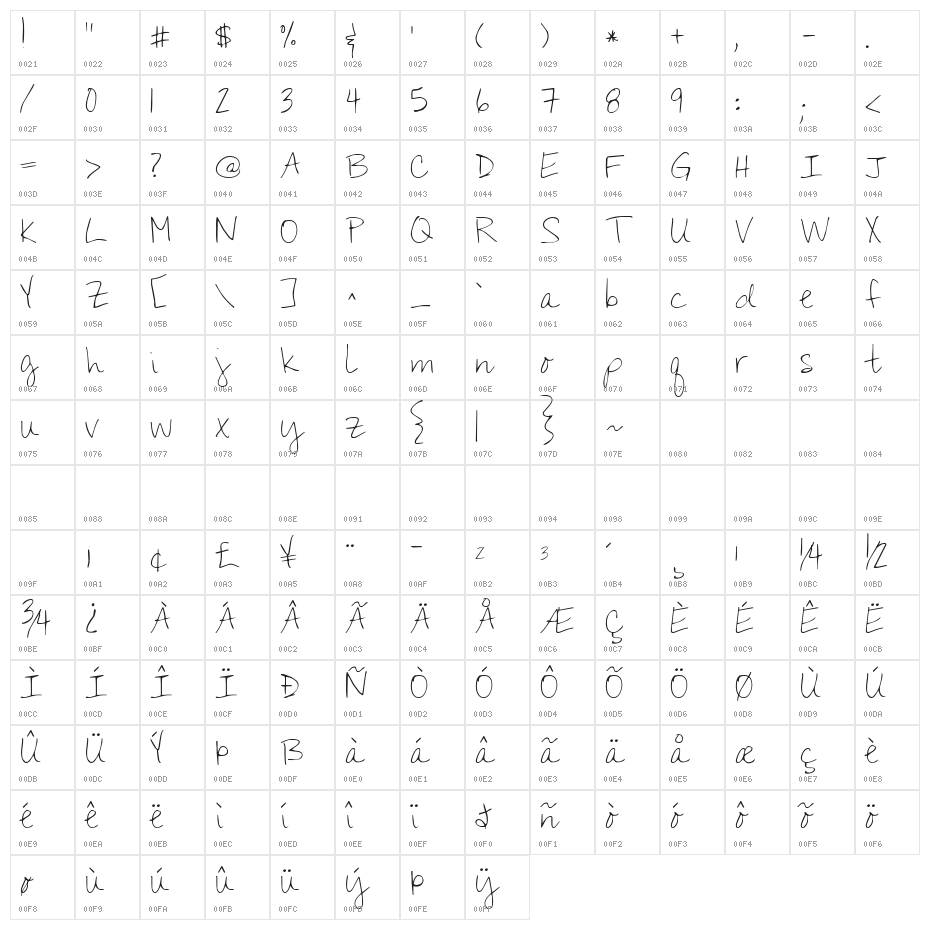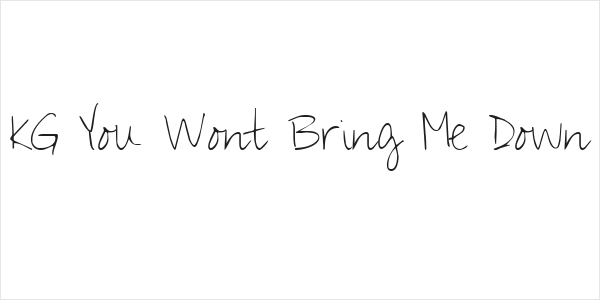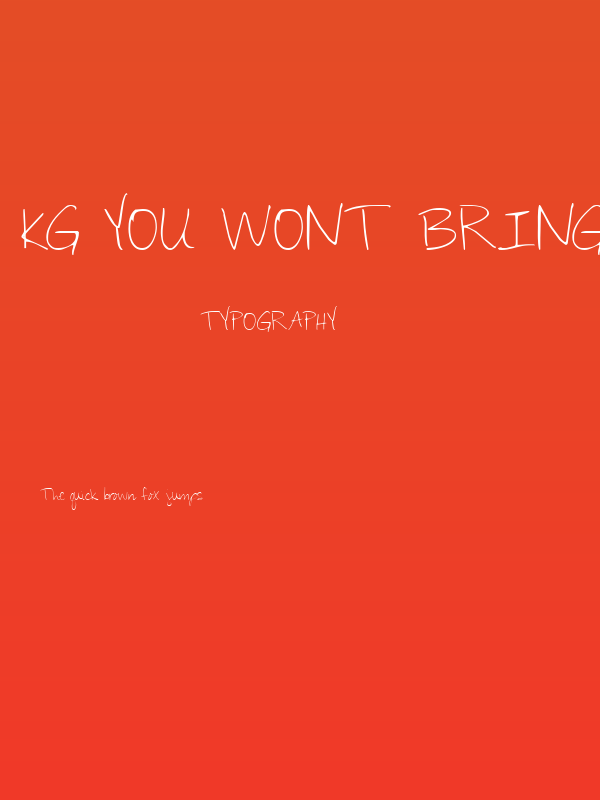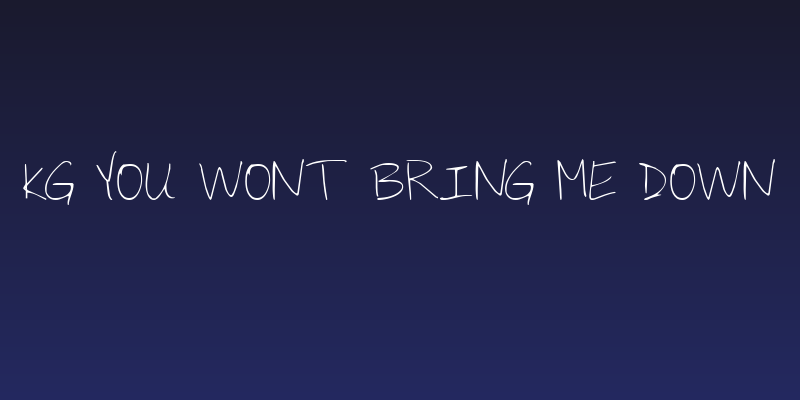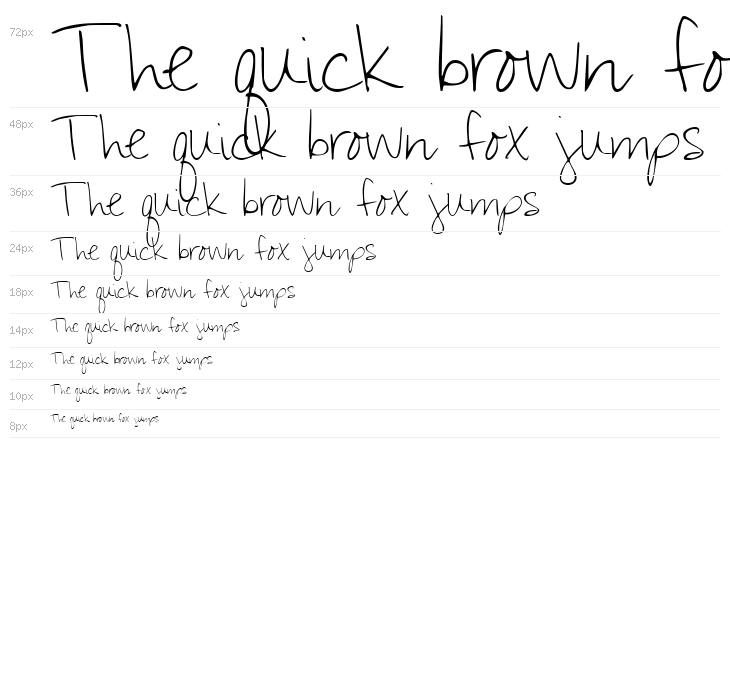
KG You Wont Bring Me Down Font
KG You Wont Bring Me Down Description
This font features a playful and casual handwritten style, characterized by its loose and informal strokes. The letters are slightly slanted, giving it a dynamic and lively appearance. The uppercase and lowercase letters maintain a consistent flow, with rounded edges and varying line thickness that add to its handwritten charm. The numbers and special characters follow the same style, ensuring uniformity across all glyphs. This font exudes a friendly and approachable vibe, making it suitable for projects that require a personal touch.
| Use Case | Logos, Headlines, Informal text |
| Proposed Projects | Ideal for greeting cards, personal notes, children's books, and informal branding. |